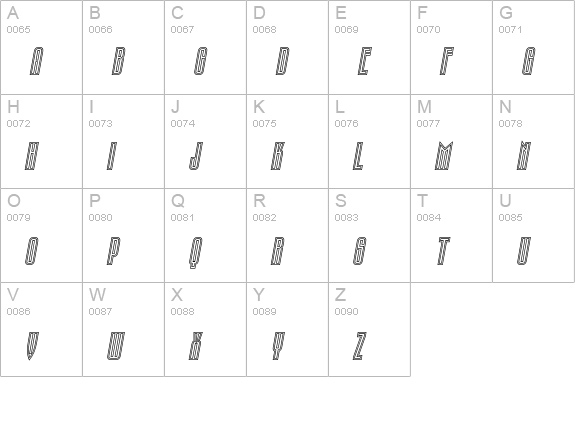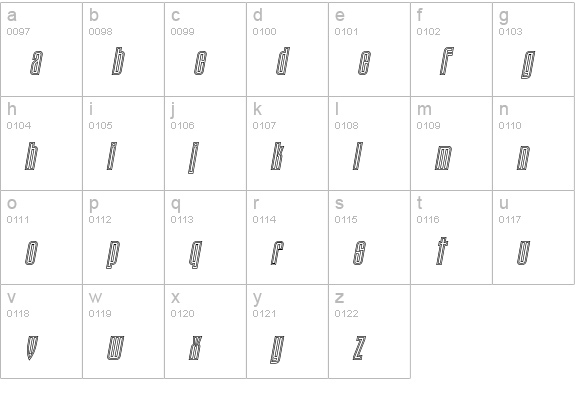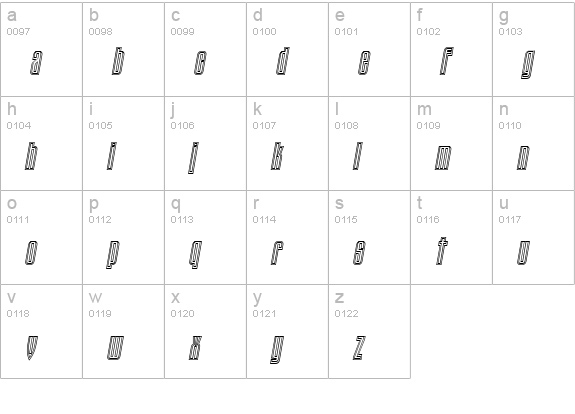
PT TauernEngraved Italic Cyrillic Font Details
PT TauernEngraved Italic Cyrillic is a distinctive, italic variant in the PT typeface family \xE2\x80\x94 well suited to design and typography projects.
PT TauernEngraved Italic Cyrillic font is a stunning and elegant typeface that exudes sophistication and charm. With its beautiful engraving-inspired design and delicate italic style, it is perfect for adding a touch of refinement to any project. The intricate details and graceful curves of PT TauernEngraved Italic Cyrillic font make it a truly captivating choice for various design purposes. Whether you are creating invitations, logos, branding materials, or even editorial designs, this font will effortlessly elevate your work to new heights. In addition to its visual appeal, PT TauernEngraved Italic Cyrillic font also offers excellent readability, making it a practical choice for both print and digital projects. Its clear letterforms ensure that your message is effectively communicated, while maintaining a sense of elegance and sophistication. One of the best things about PT TauernEngraved Italic Cyrillic font is that it is available for free download at FontsMarket.com. This means that you can easily access and use this exceptional font in your projects without any constraints. Whether you are a professional designer or a hobbyist, this font provides you with the opportunity to add a touch of class to your creations, completely free of charge. So, why wait? Enhance your designs with the timeless beauty of PT TauernEngraved Italic Cyrillic font today. Visit FontsMarket.com to download this extraordinary font and unlock a world of design possibilities.